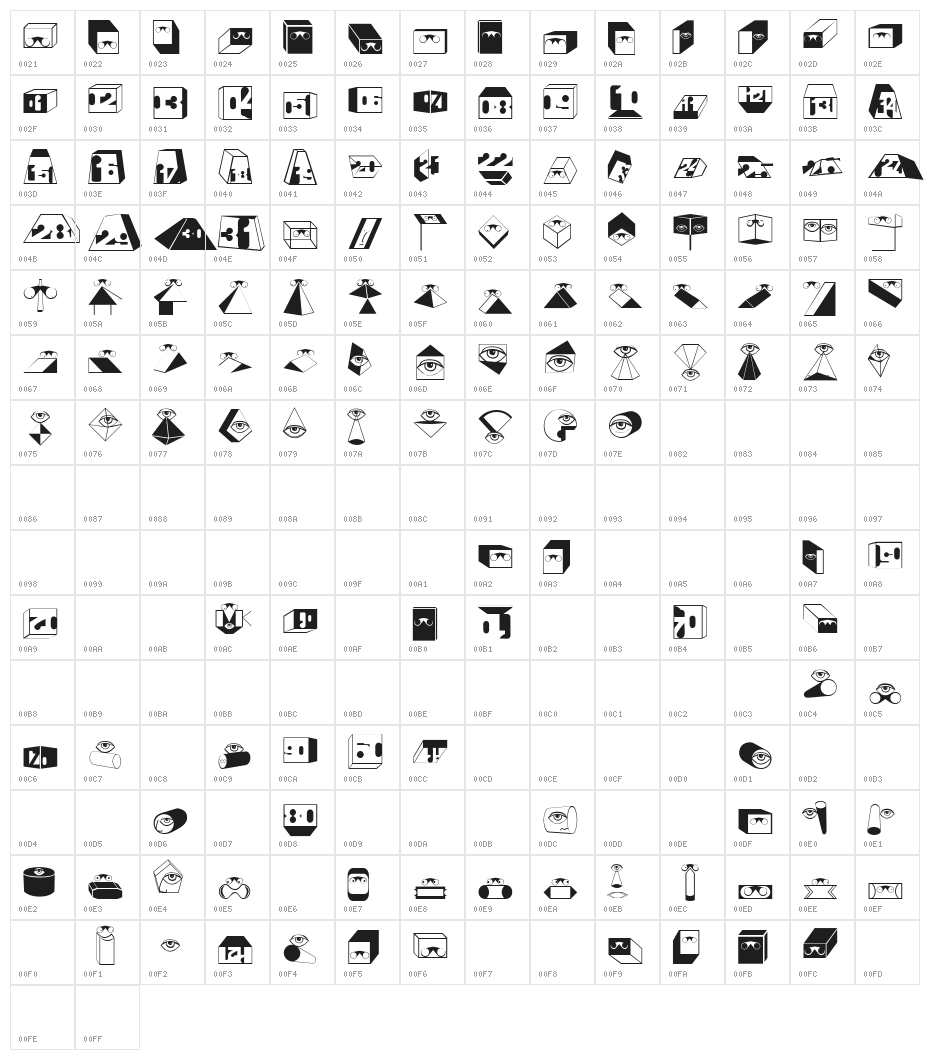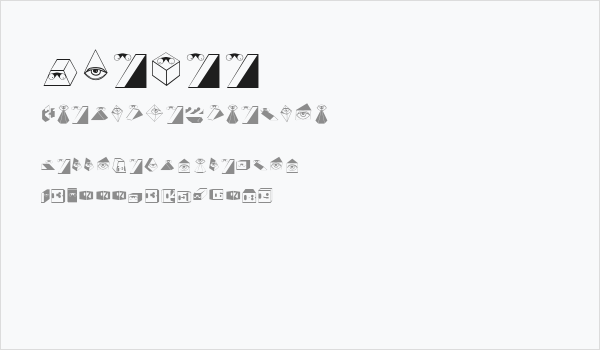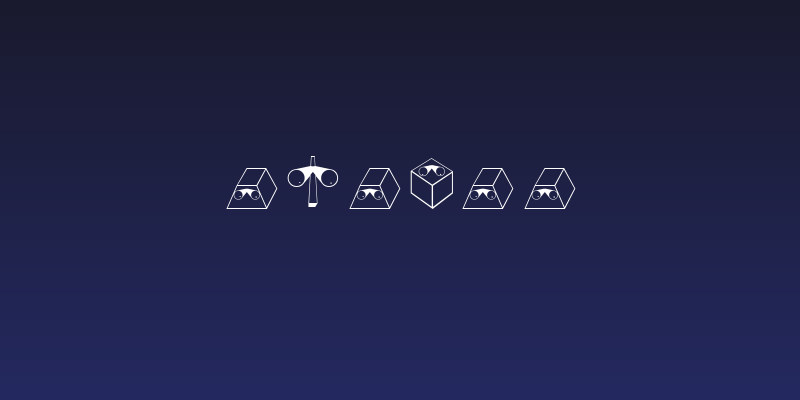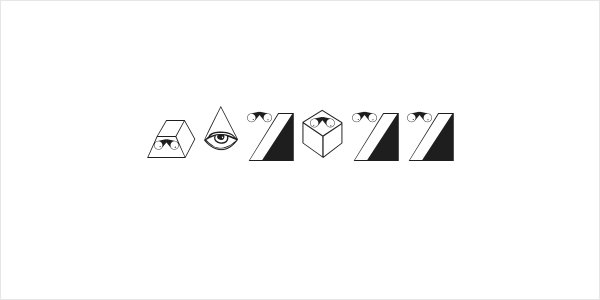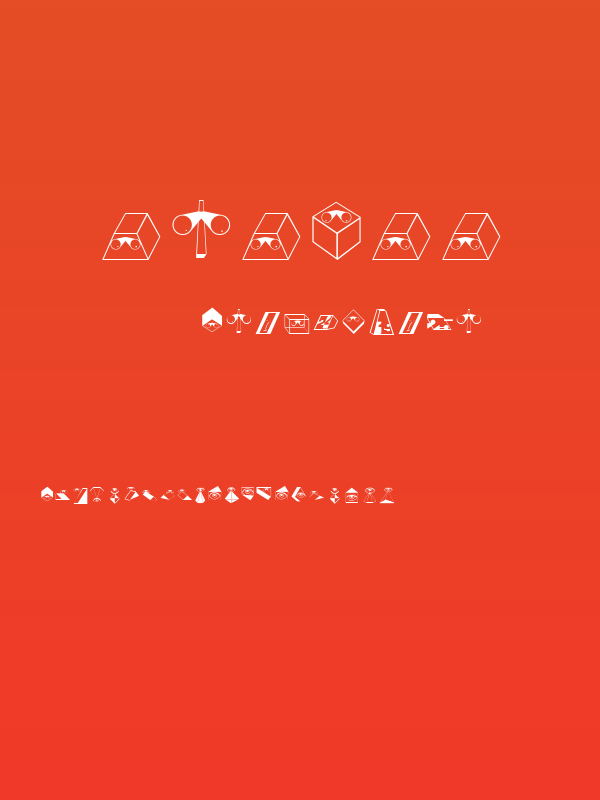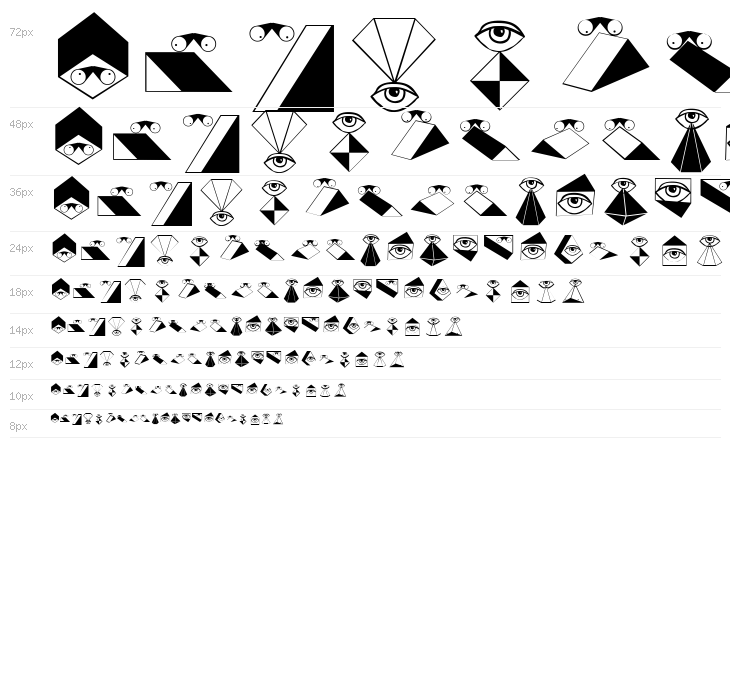
EyeSee Font
EyeSee Description
This font is a highly creative and abstract display typeface, characterized by its unique integration of geometric shapes and eye motifs within each character. The letters and numbers are constructed using a combination of cubes, pyramids, and other angular forms, each incorporating an eye design that adds a whimsical and surreal touch. The font's playful and artistic style makes it stand out, with each character appearing as a miniature piece of art. The bold use of black and white enhances the visual impact, creating a striking contrast that draws attention. This font is not designed for readability in large bodies of text but rather for decorative purposes where its artistic qualities can be appreciated.
| Overall Style | Modern, Artistic |
| Use Case | Logos, Posters, Artistic Displays |
| Proposed Projects | Ideal for artistic projects, posters, album covers, and branding that seeks a unique and eye-catching aesthetic. |